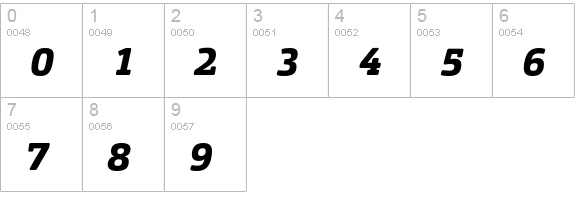
Orgon Slab ExtraBold Italic Font Details
Orgon Slab ExtraBold Italic is an extra-heavy, attention-grabbing, italic variant in the Orgon typeface family \xE2\x80\x94 well suited to high-impact headlines, posters, and bold branding.
Orgon Slab ExtraBold Italic font is a stunning and bold typeface that exudes confidence and modernity. Its thick strokes and dynamic italics make it perfect for creating eye-catching headlines and impactful designs. This font strikes the perfect balance between strength and elegance, making it versatile for various design projects. And the best part? Orgon Slab ExtraBold Italic font is available for free download at FontsMarket.com. So go ahead and elevate your design game with this striking and powerful typeface.